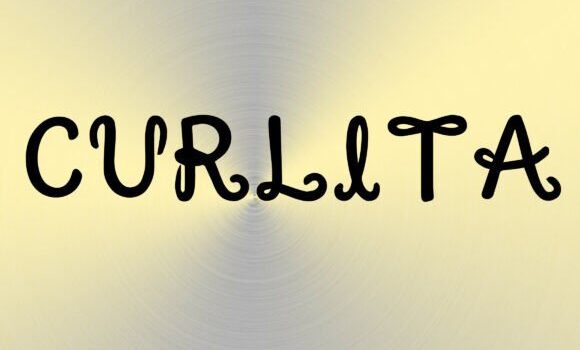
curlita
Curlita Font – Free Download Introduction to Curlita Font Curlita is a playful handwritten display font with soft curves, whimsical loops, and a charming decorative feel. 📸 Preview Gallery 1 image 📌 Product Name Curlita Font 👤 Author MOMAT THIRTYONE